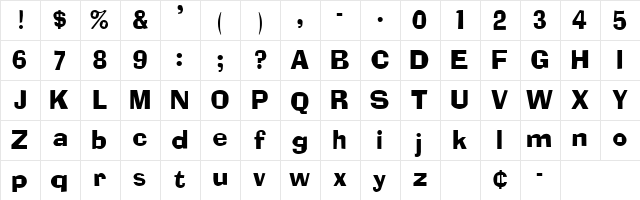
Addled (Plain)
Design Context for Addled Typeface
Addled takes a measured approach to typography — its balanced proportions and neutral character make it a reliable workhorse for both digital and print work.